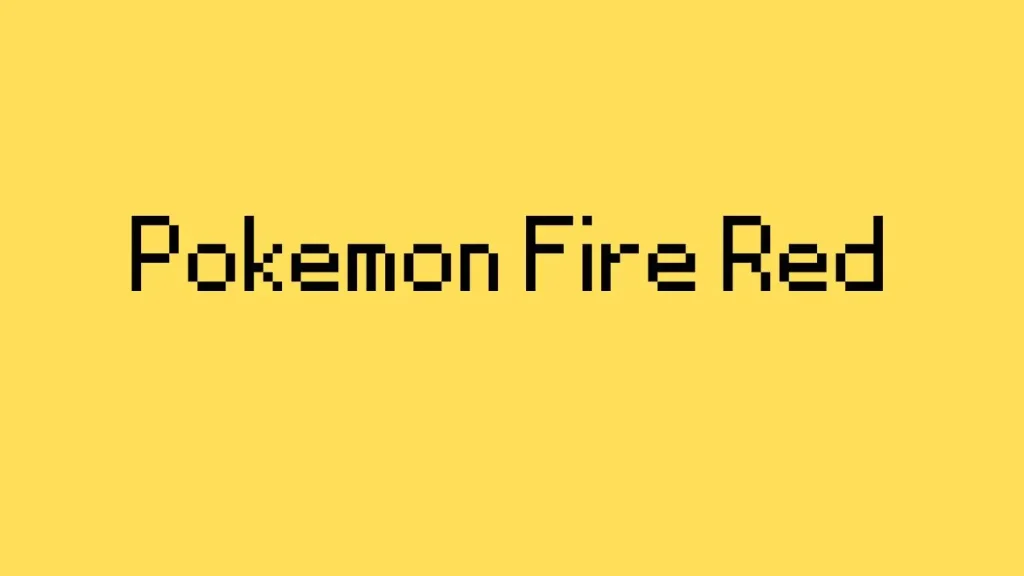
KaelinT created this nice and unique font. There is no doubt in it that the font is very popular among designers. People use this style for creating soft and unique design projects.
The use of this font gives almost every design a unique look, so it would be an ideal choice for any upcoming big project.
The style has been used by many experts to design website logos. When you want to create your next website, you can use this typeface, which will add a stylish and appealing look to the project design.
With this style, you can create movie posters with their titling. You can make vlogs more attractive while using this style. It is the best-suited typeface to make clothing, t-shirt, blouse, and pants designs.
In addition to logo designs and paintings, this typeface is ideal for homeware designs, and media titles. As a designer, you can use this typeface to design newspaper and magazine covers and book covers. The pairing of this typeface with the amasis font opens up opportunities to craft exceptional displays.
Logos, brochure covers, wedding cards, and invitations can all be created by using this font. You can also use this text style to create logos, artwork, and movie titles.
| Name | Pokeman Fire Red Font |
| Designer | KaelinT |
| Style | Retro |
Can I use Pokemon Fire Red Font for poster designs?
There is no problem with using this font for creating poster designs. Moreover, it can also be used to design artwork for walls as well.
Who designed Pokemon Fire Red typeface?
KaelinT created this nice and unique font.